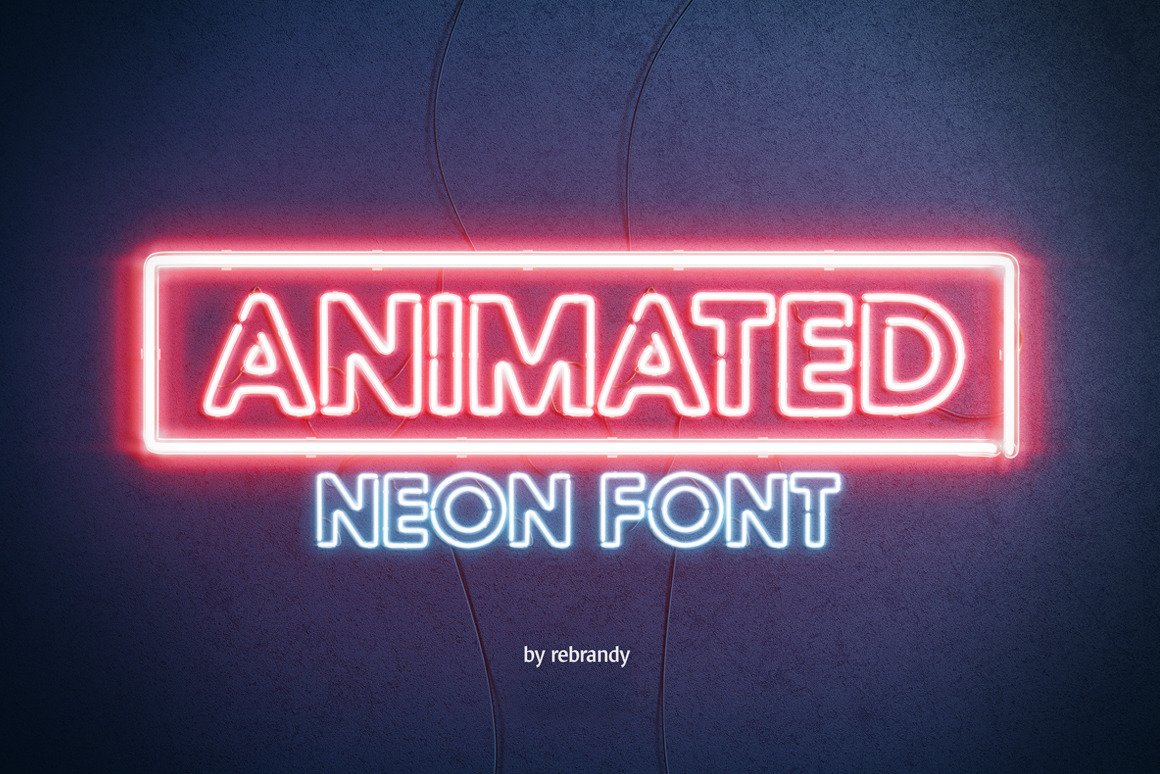
Animated Neon Font with switching glow, sound effects and a complete set of instructions ❤
- glow color;
- glow animation types;
- colors of wires, glass and racks;
- colors of decorative elements;
- background color and design;
- sound effects;
Animation types:
- constant;
- turning on;
- turning on/off;
- broken;
- blinking once;
- constant switching;